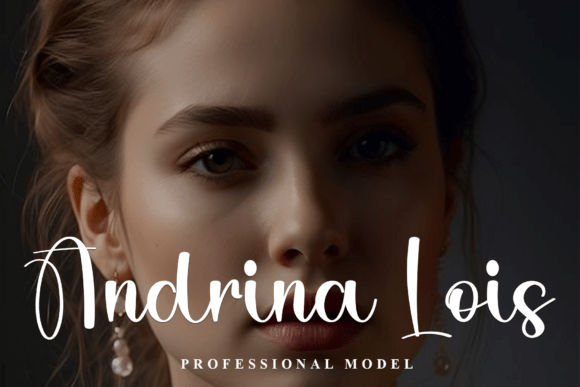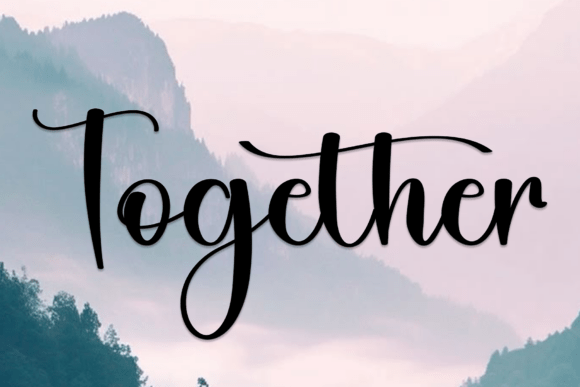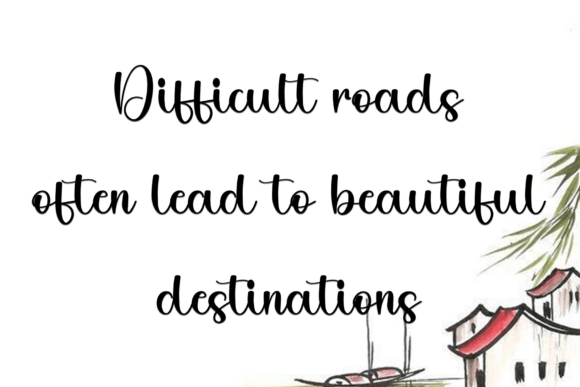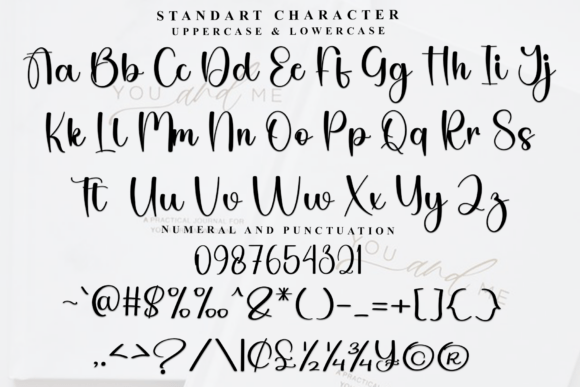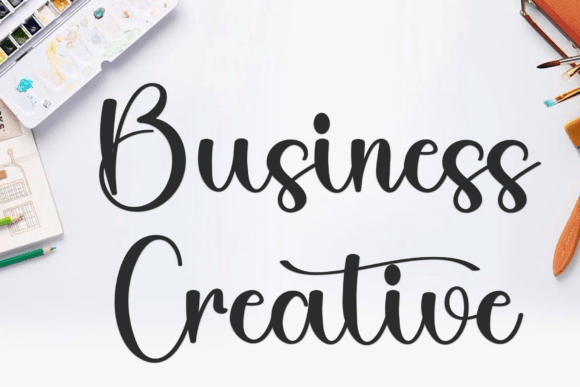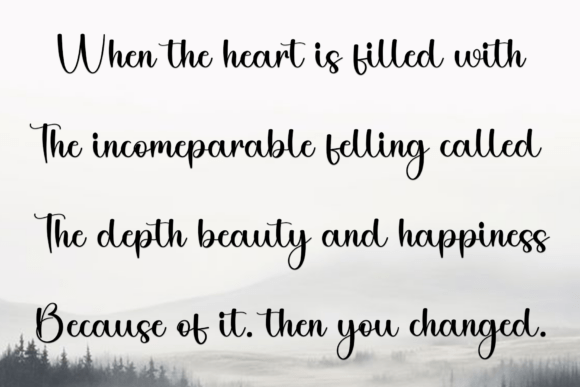
Introducing Brithney Font: The Ultimate Holiday Typeface
Are you looking for a font that embodies the magic and wonder of the holiday season? Look no further than Brithney Font, a festive and merry typeface designed to add a touch of enchantment to your designs. With its decorative elements and whimsical flair, Brithney Font is perfect for greeting cards, gift tags, and holiday-themed projects.
Brithney Font is a carefully crafted typeface that captures the spirit of the holiday season. Its decorative elements and whimsical flair make it an ideal choice for designers and crafters looking to add a touch of magic to their projects. Whether you’re creating greeting cards, gift tags, or holiday-themed crafts, Brithney Font is sure to bring a cheerful and nostalgic ambiance to your words.
Brithney Font is specifically designed with holiday projects in mind. Its festive and merry design makes it perfect for:
- Greeting cards: Add a touch of magic to your holiday greeting cards with Brithney Font.
- Gift tags: Make your gift tags stand out with the whimsical and decorative elements of Brithney Font.
- Holiday-themed crafts: Bring a cheerful and nostalgic ambiance to your holiday-themed crafts with Brithney Font.
Benefits of Using Brithney Font
There are many benefits to using Brithney Font in your designs and projects. Some of the key benefits include:
- Festive and merry design: Brithney Font adds a touch of magic and wonder to your designs.
- Versatile: Brithney Font can be used in a wide range of holiday-themed projects, from greeting cards to gift tags and crafts.
- High-quality design: Brithney Font is carefully crafted to ensure a high-quality design that will enhance your projects.
Tips for Using Brithney Font
Here are some tips for getting the most out of Brithney Font:
- Experiment with different sizes and colors: Brithney Font looks great in a variety of sizes and colors, so don’t be afraid to experiment and find the perfect combination for your project.
- Combine with other fonts: Brithney Font pairs well with other fonts, so try combining it with a sans-serif font for a modern look or a script font for a more elegant feel.
- Use the font’s decorative elements: Brithney Font includes a range of decorative elements and glyphs, so be sure to use them to add a touch of magic to your designs.
Brithney Font is a festive and merry typeface that captures the spirit of the holiday season. With its decorative elements and whimsical flair, it adds a touch of enchantment to your designs. Perfect for greeting cards, gift tags, and holiday-themed projects, Brithney Font brings a cheerful and nostalgic ambiance to your words. Let your typography shine with the magic of Brithney Font!